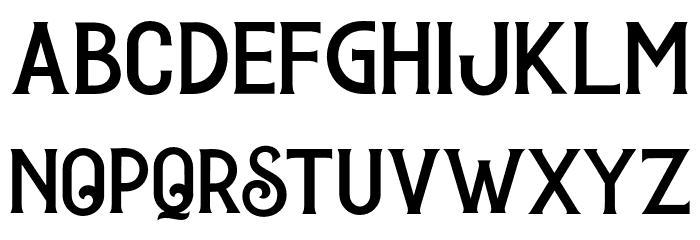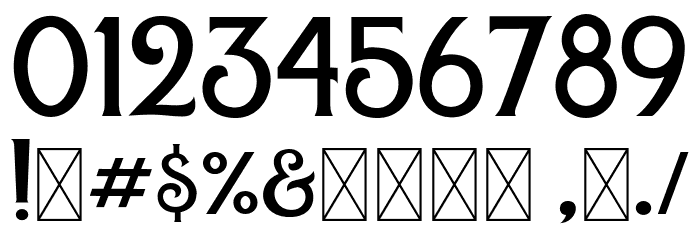
DarktownRegular Font
This font features a unique blend of decorative and bold elements, offering a distinct style that combines ornate details with strong, clear lines. The uppercase letters exhibit intricate flourishes, particularly noticeable in the curves and terminals, giving them an elegant and somewhat vintage appearance. The lowercase letters maintain a more straightforward design, ensuring readability while still incorporating subtle decorative touches. The numerals are bold and consistent, providing a solid presence that complements the overall aesthetic. Special characters are designed with a similar attention to detail, ensuring they fit seamlessly with the rest of the typeface. This font's combination of decorative and bold elements makes it versatile for various design applications.
A decorative and bold font with ornate uppercase and clear lowercase letters.
- Font: DarktownRegular
- Proposed Projects: Ideal for vintage-themed posters, branding, invitations, and decorative headlines.
- Overall Style: Vintage